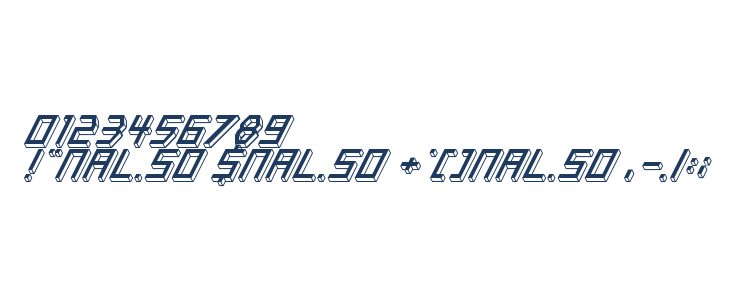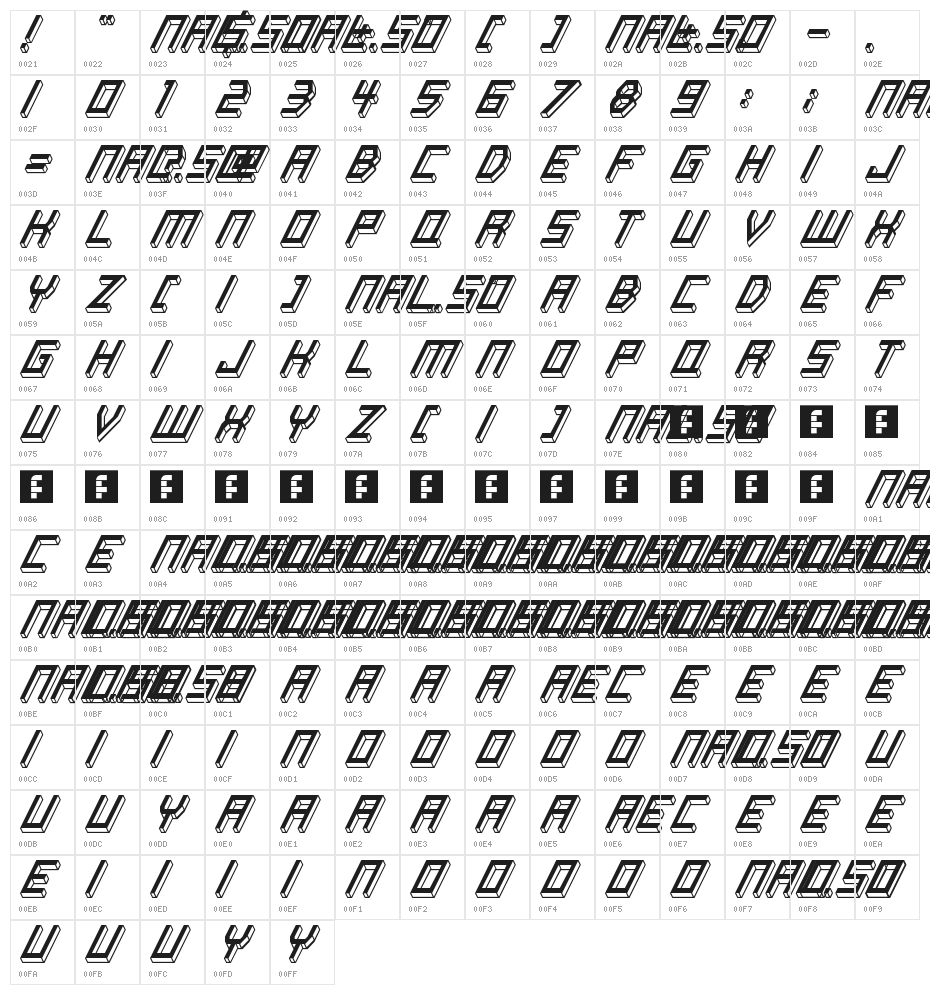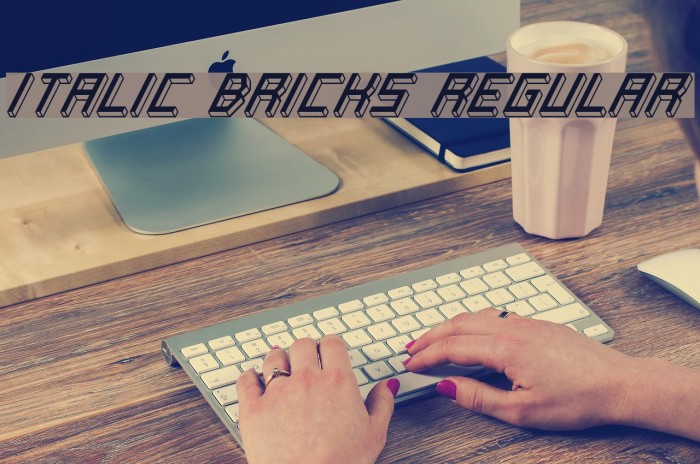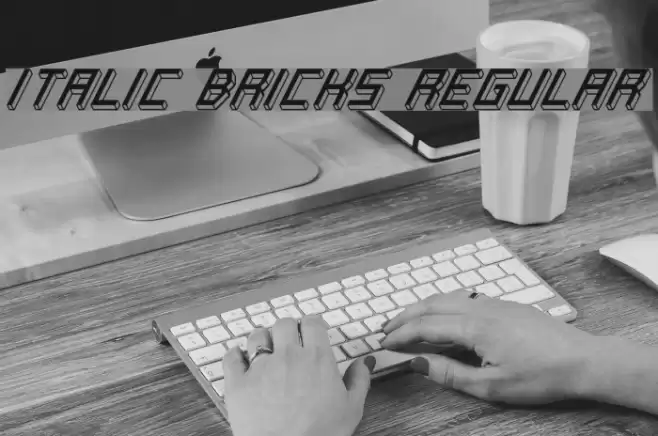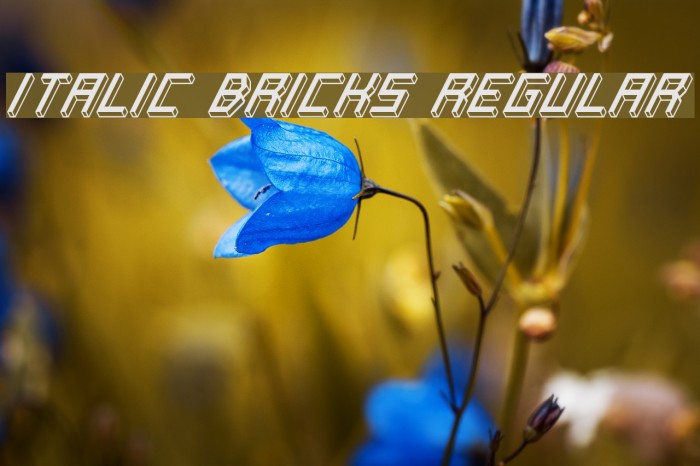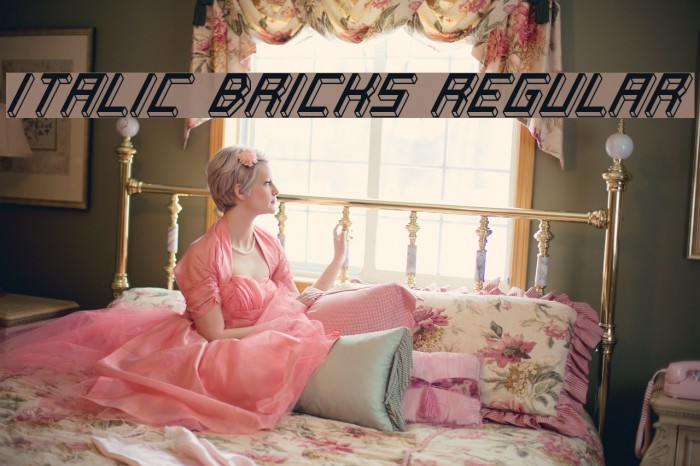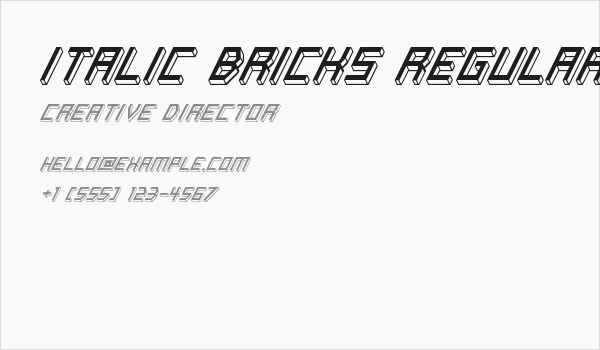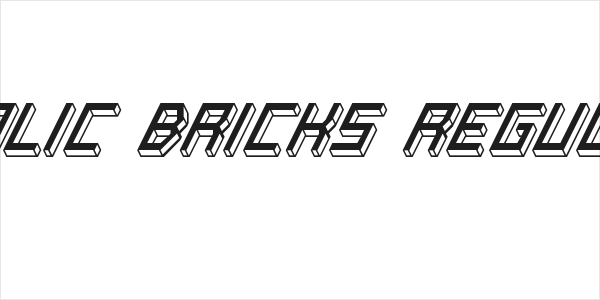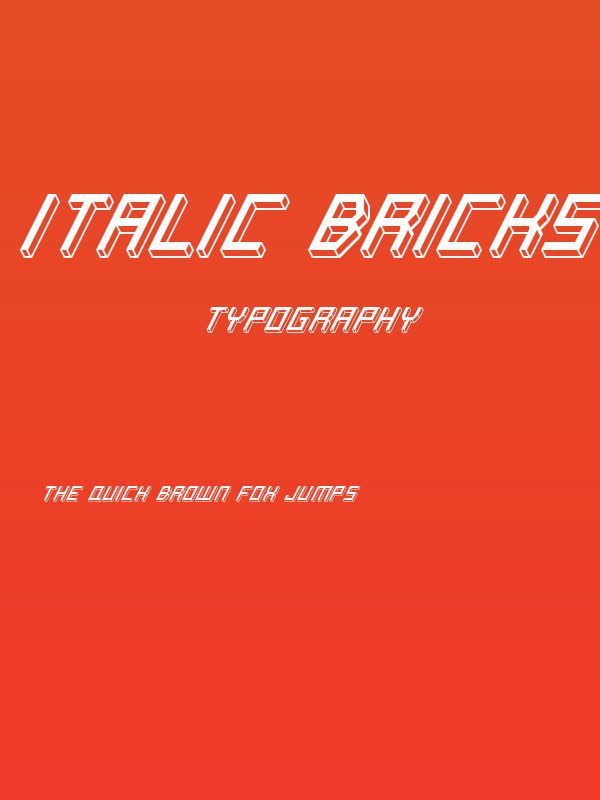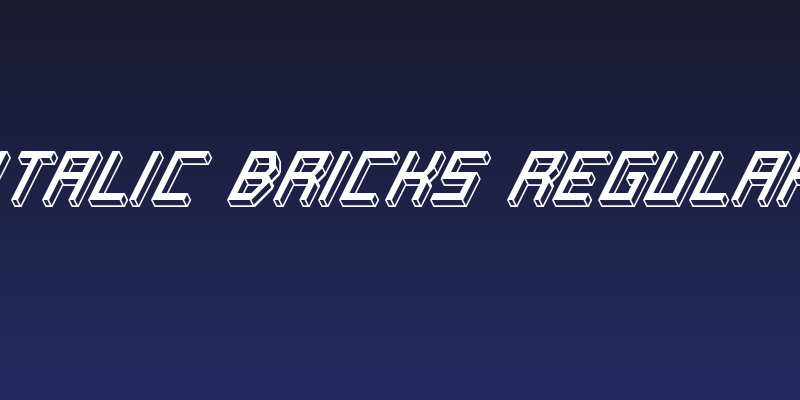
Italic Bricks Regular Font
Italic Bricks Regular Description
This font features a bold, three-dimensional design with an italic slant, giving it a dynamic and modern appearance. The characters are outlined, creating a sense of depth and dimension. The geometric structure of each letter is consistent, with sharp angles and clean lines that enhance its futuristic style. The font's unique 3D effect is achieved through the use of parallel lines and shading, which adds a sense of movement and energy. This makes it particularly eye-catching and suitable for projects that require a strong visual impact. The uppercase and lowercase letters maintain a uniform style, ensuring readability while still being visually striking.
| Proposed Projects | Ideal for posters, headlines, logos, and any design needing a futuristic or impactful look. |